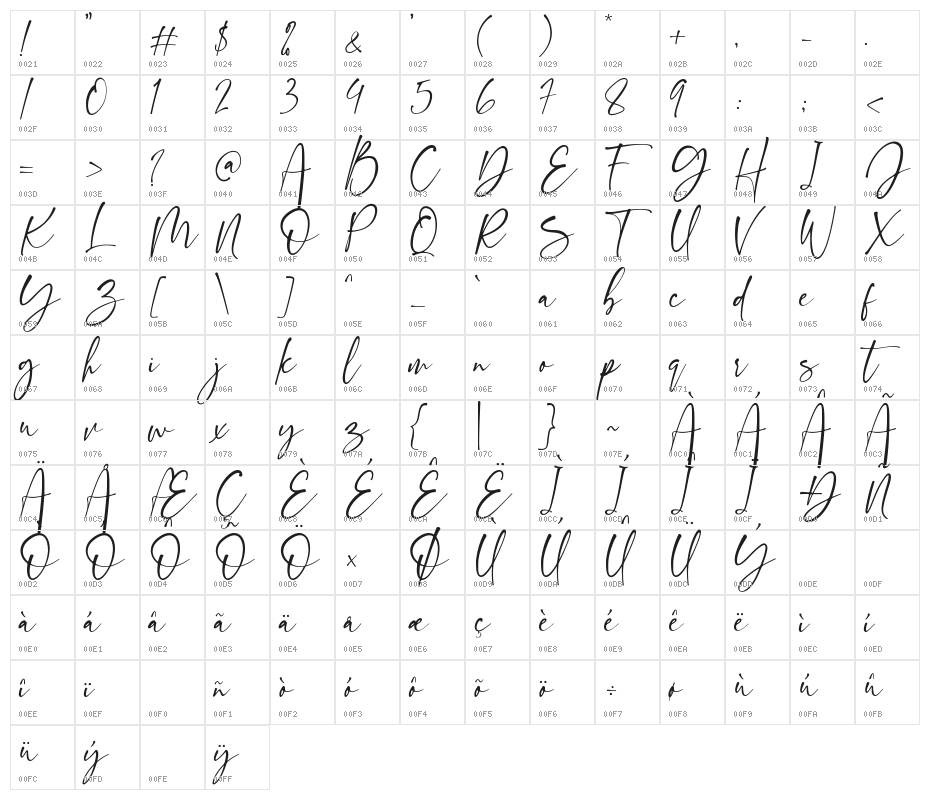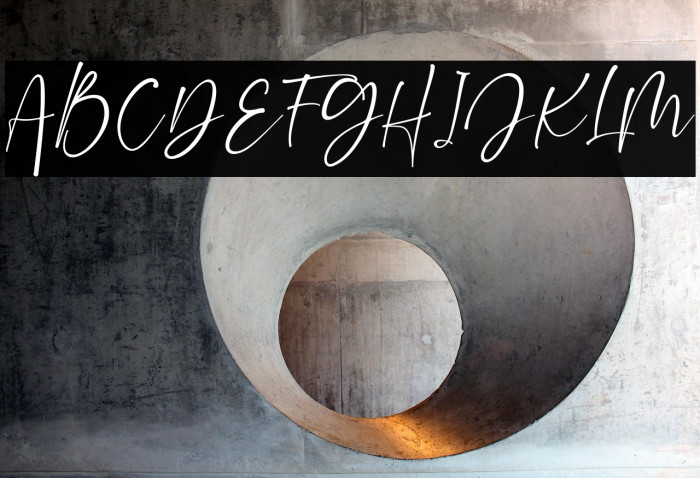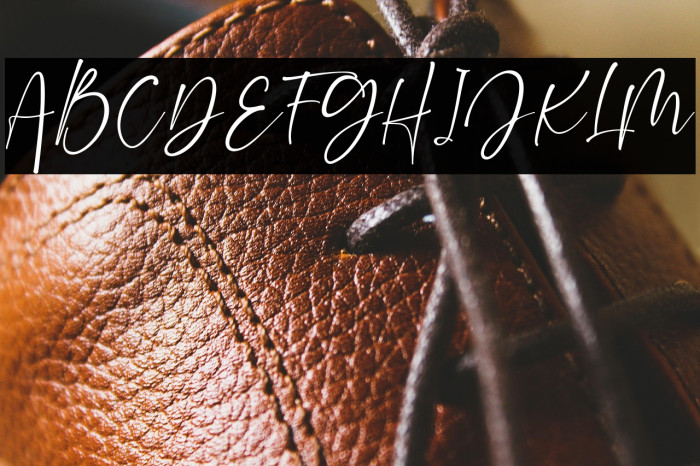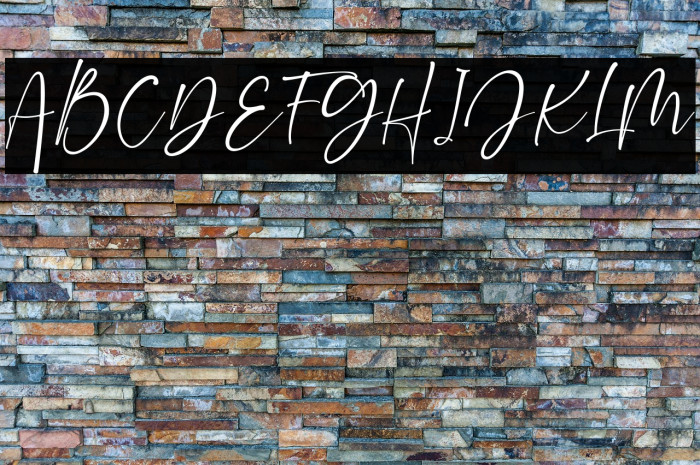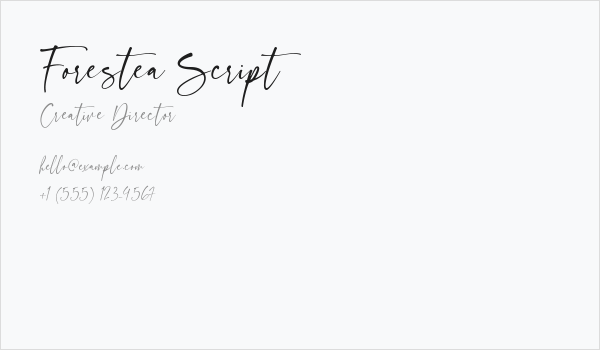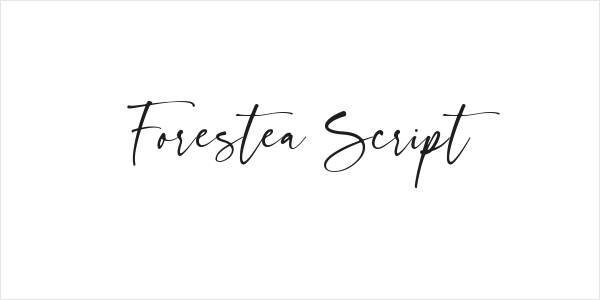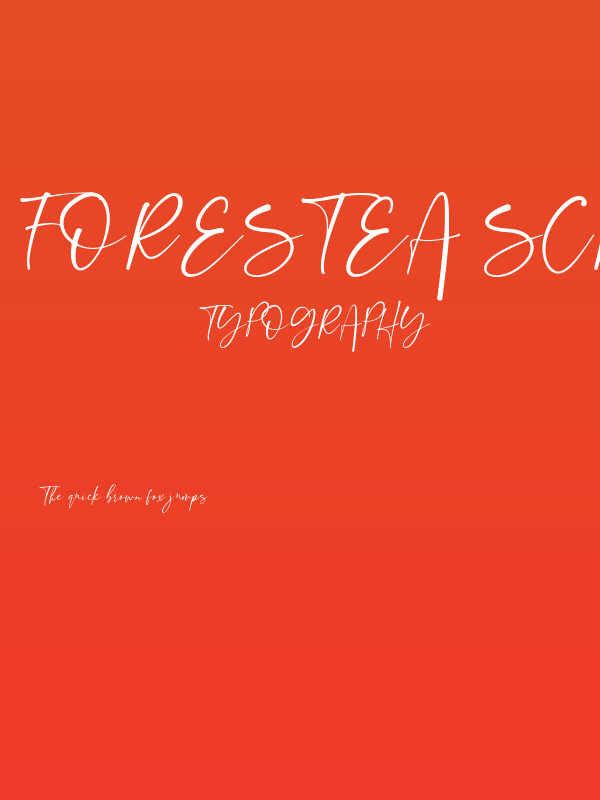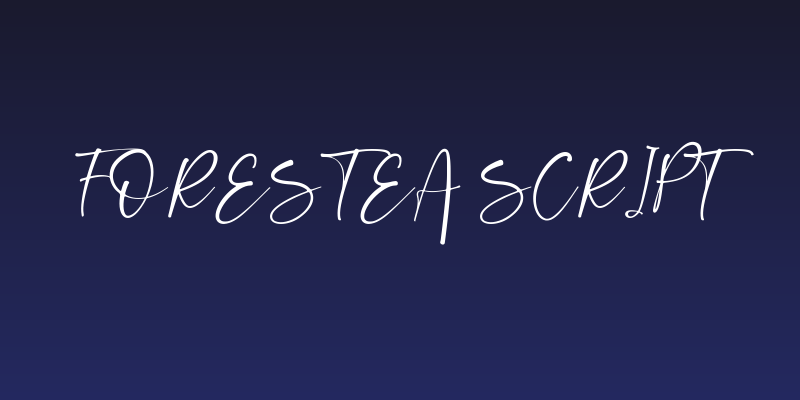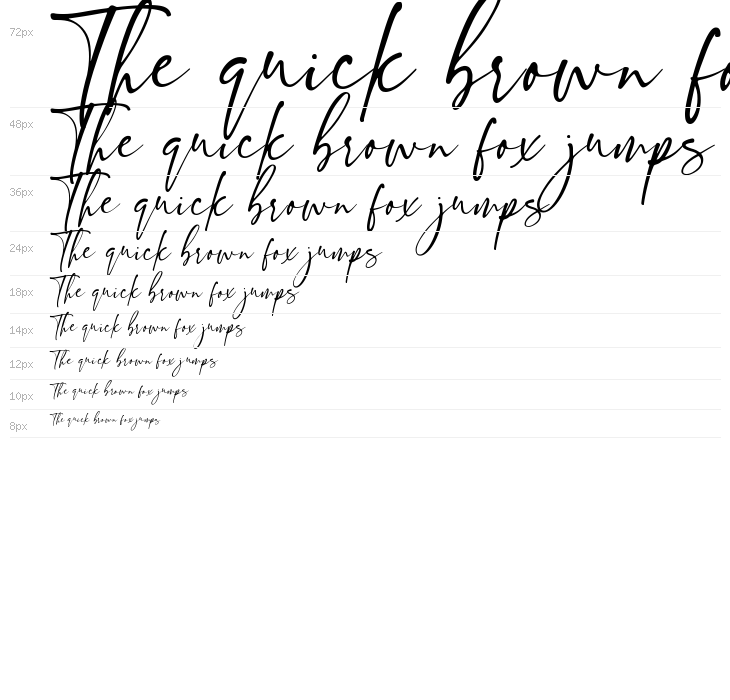
Forestea Script Font
Forestea Script Description
This font features a lively and dynamic script style, characterized by its flowing, cursive letterforms that mimic natural handwriting. The strokes are smooth and fluid, with a slight slant that adds to its casual and informal appearance. The uppercase letters are slightly taller and more prominent, while the lowercase letters maintain a consistent flow, enhancing readability. The numerals and special characters are designed to match the overall aesthetic, ensuring a cohesive look. This font exudes a sense of elegance and spontaneity, making it suitable for projects that require a personal touch.
| Use Case | Logos, Invitations, Personal Branding |
| Proposed Projects | Ideal for wedding invitations, greeting cards, personal branding, and creative projects that require a handwritten touch. |